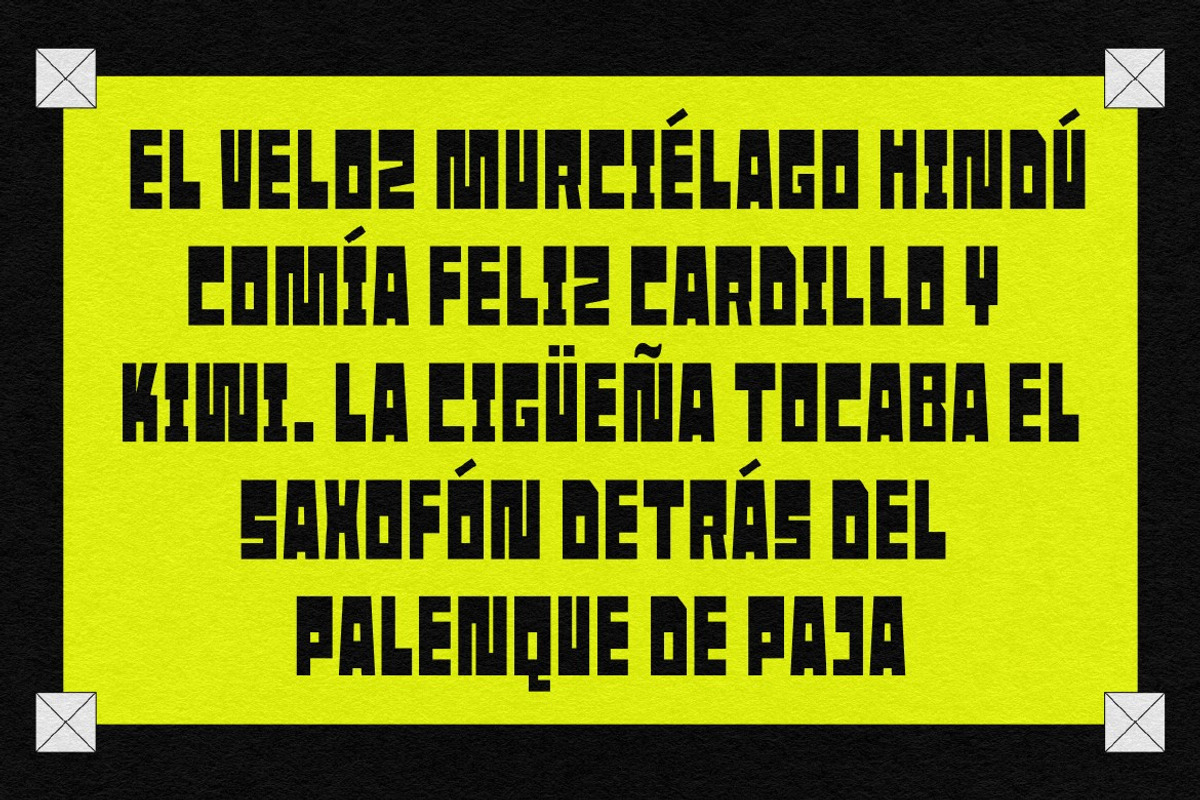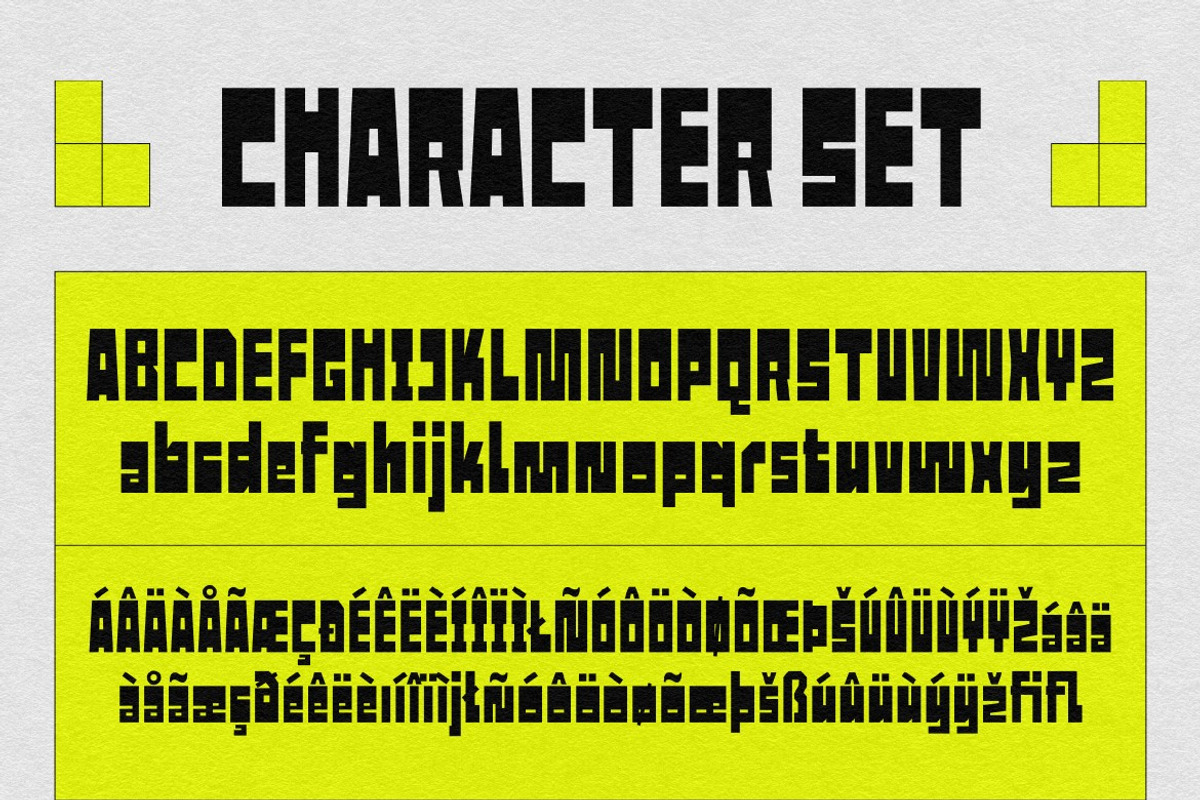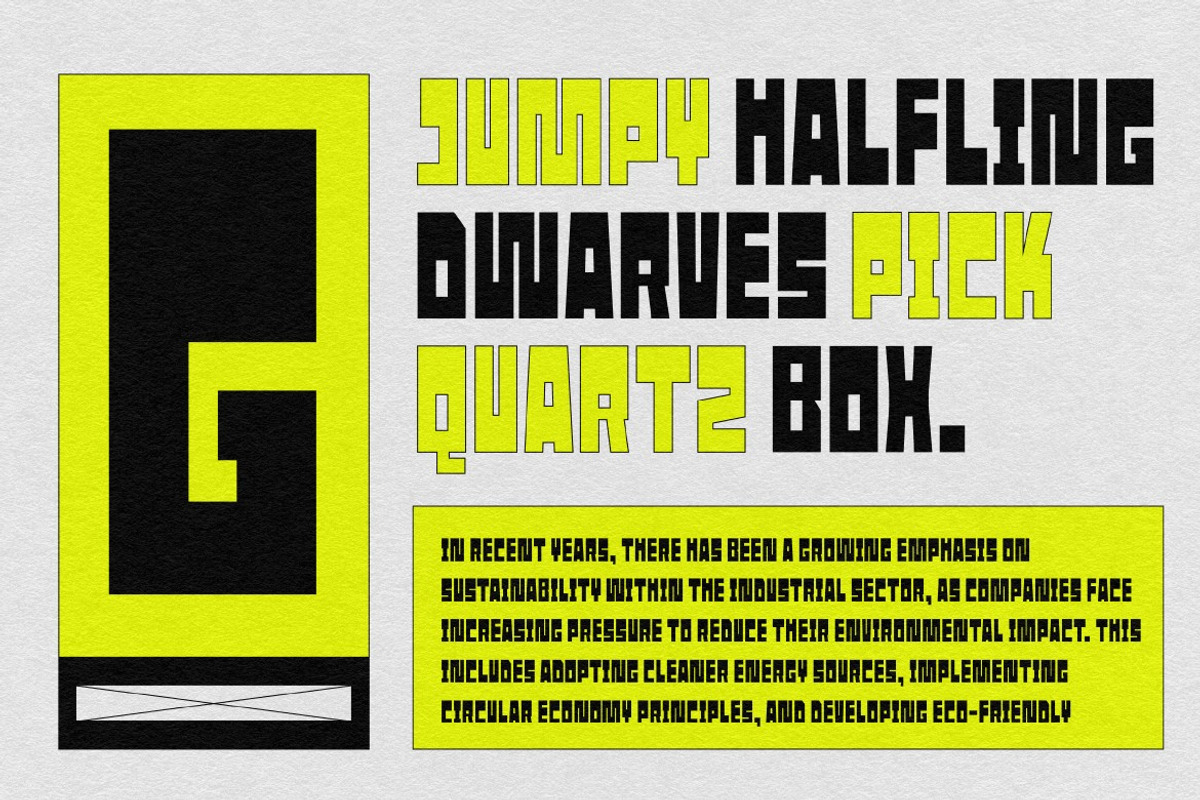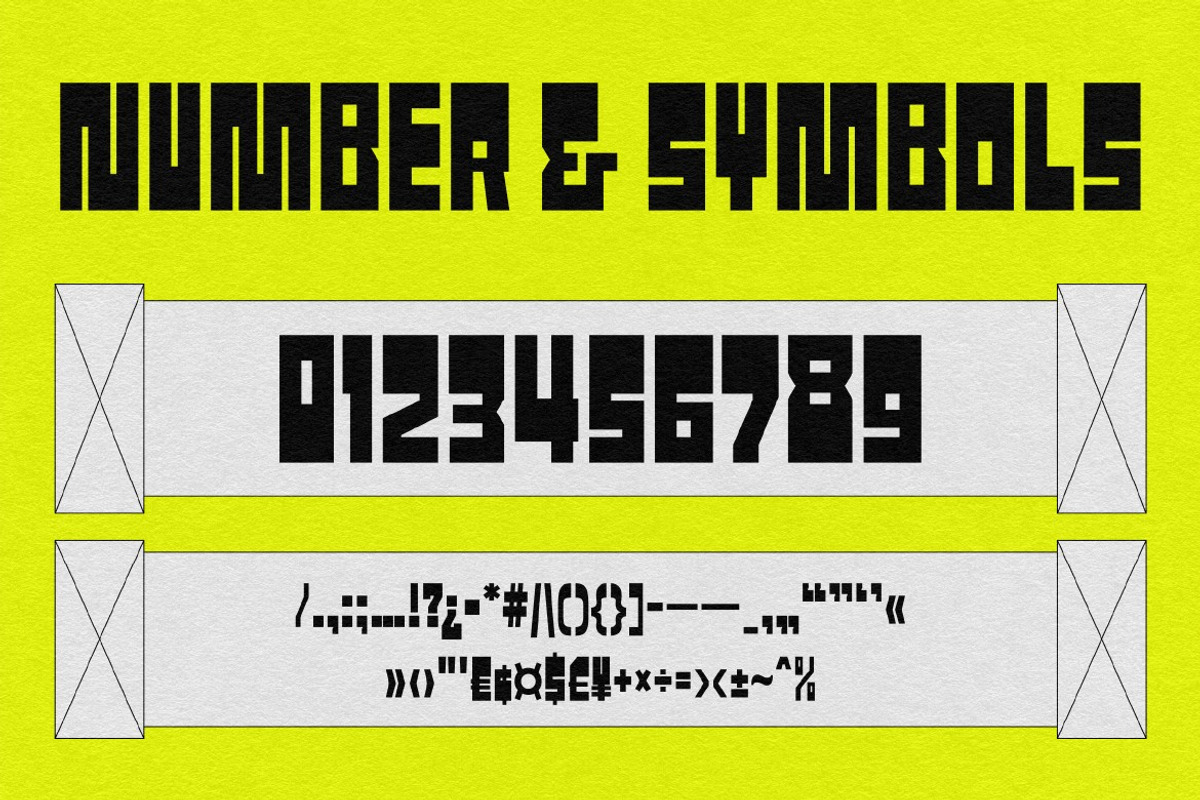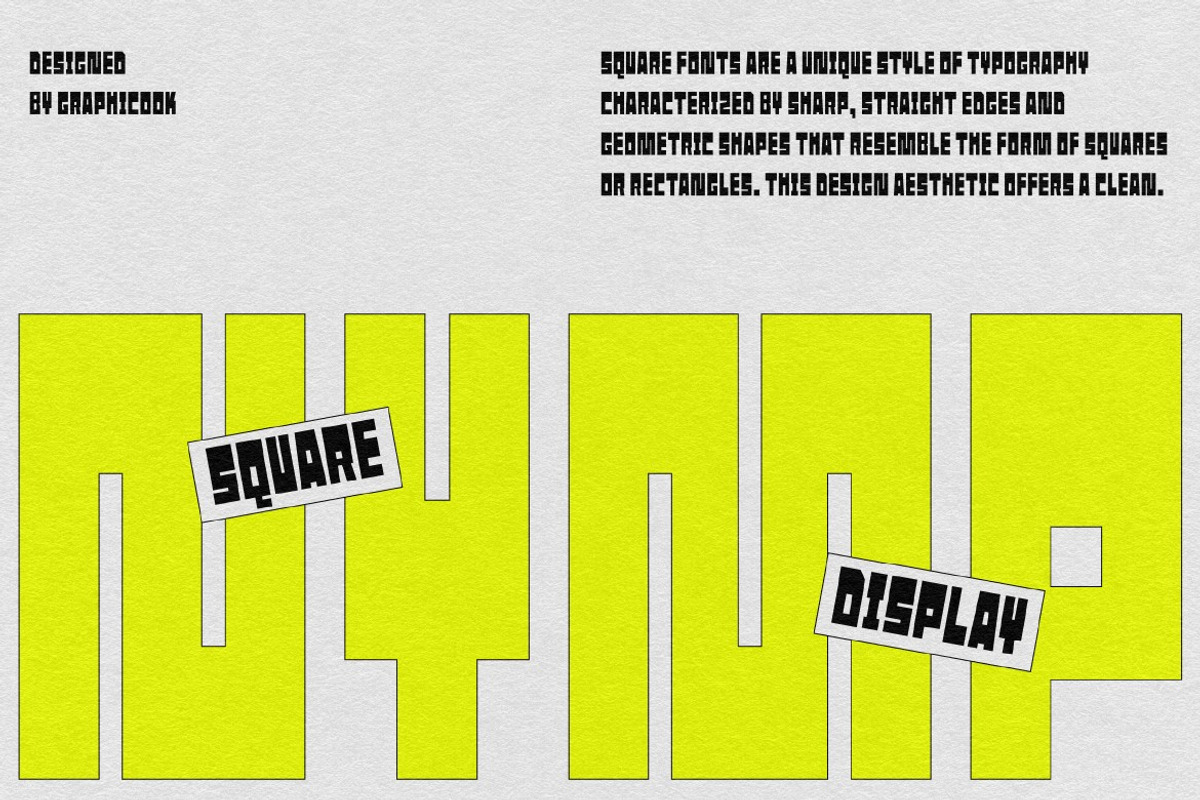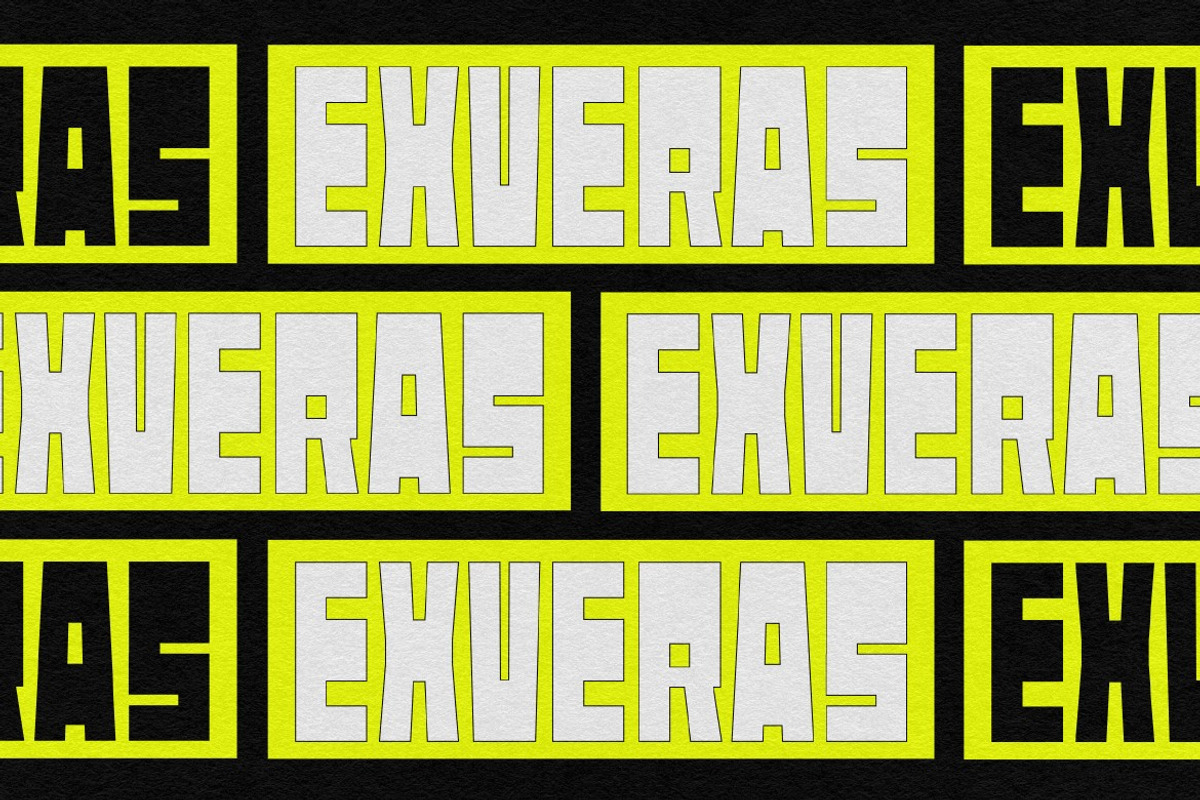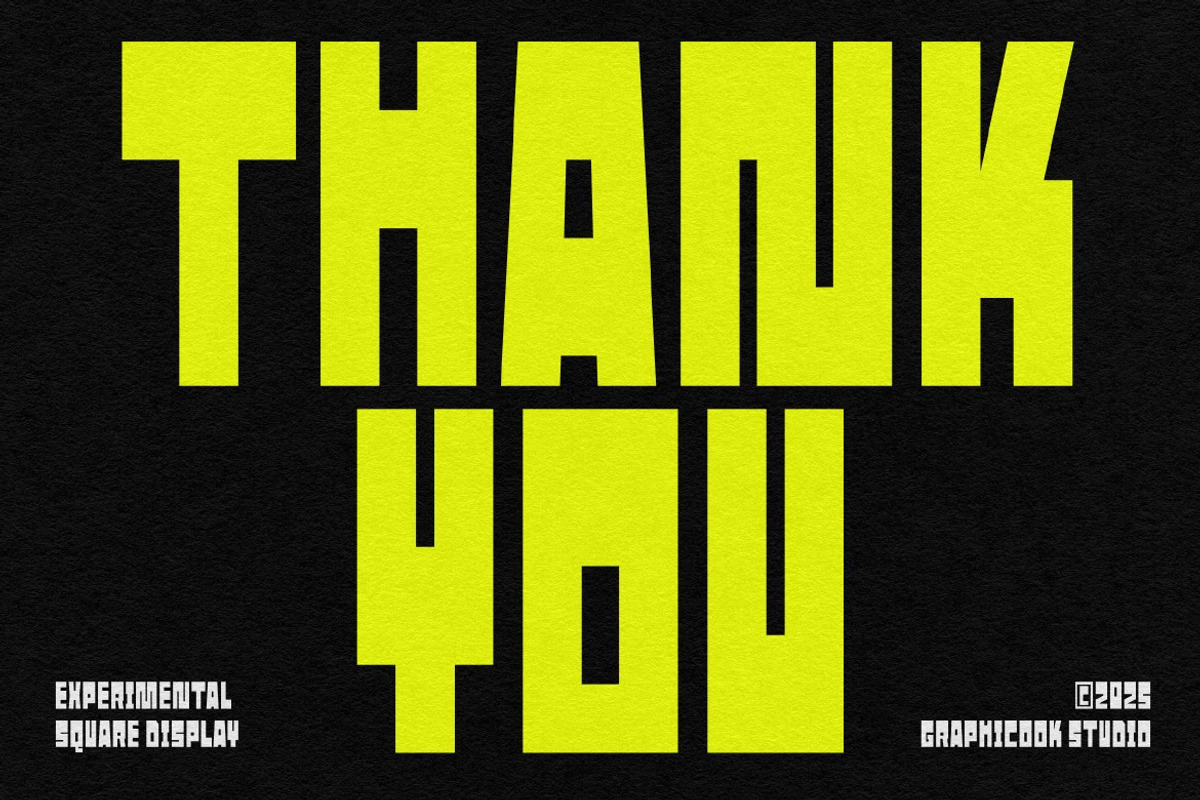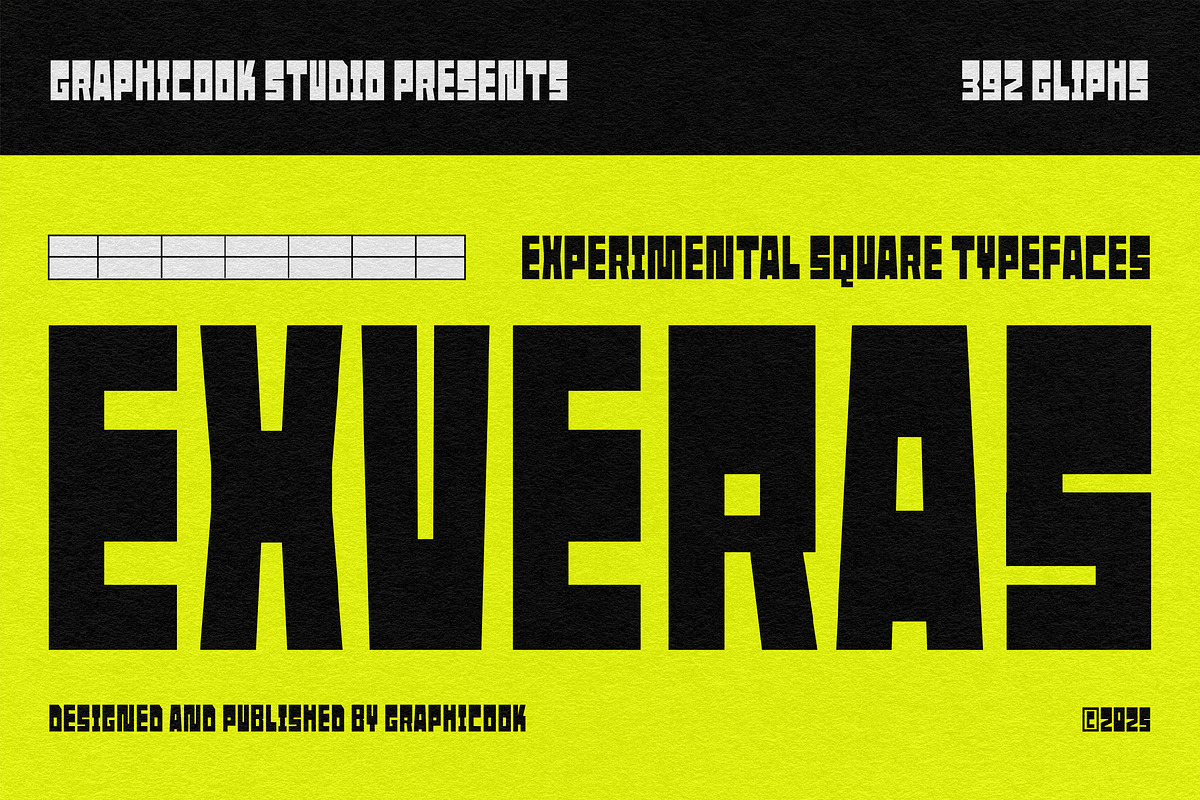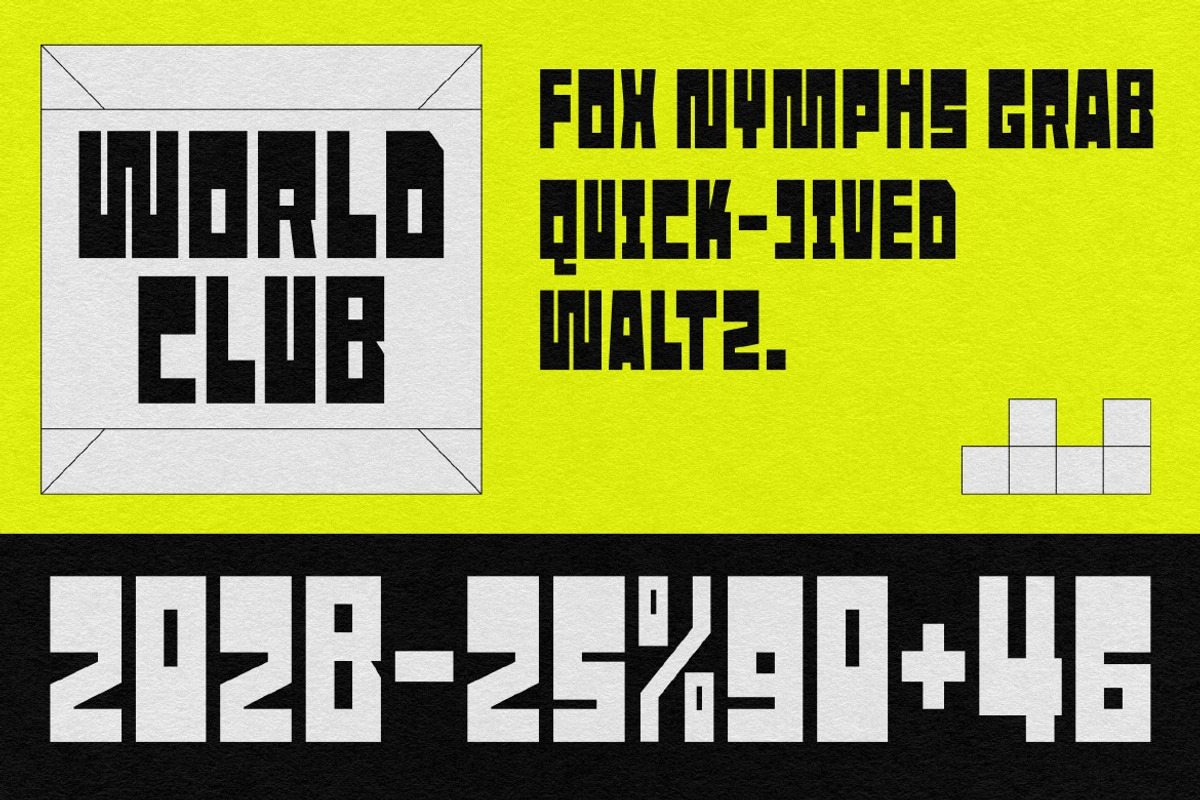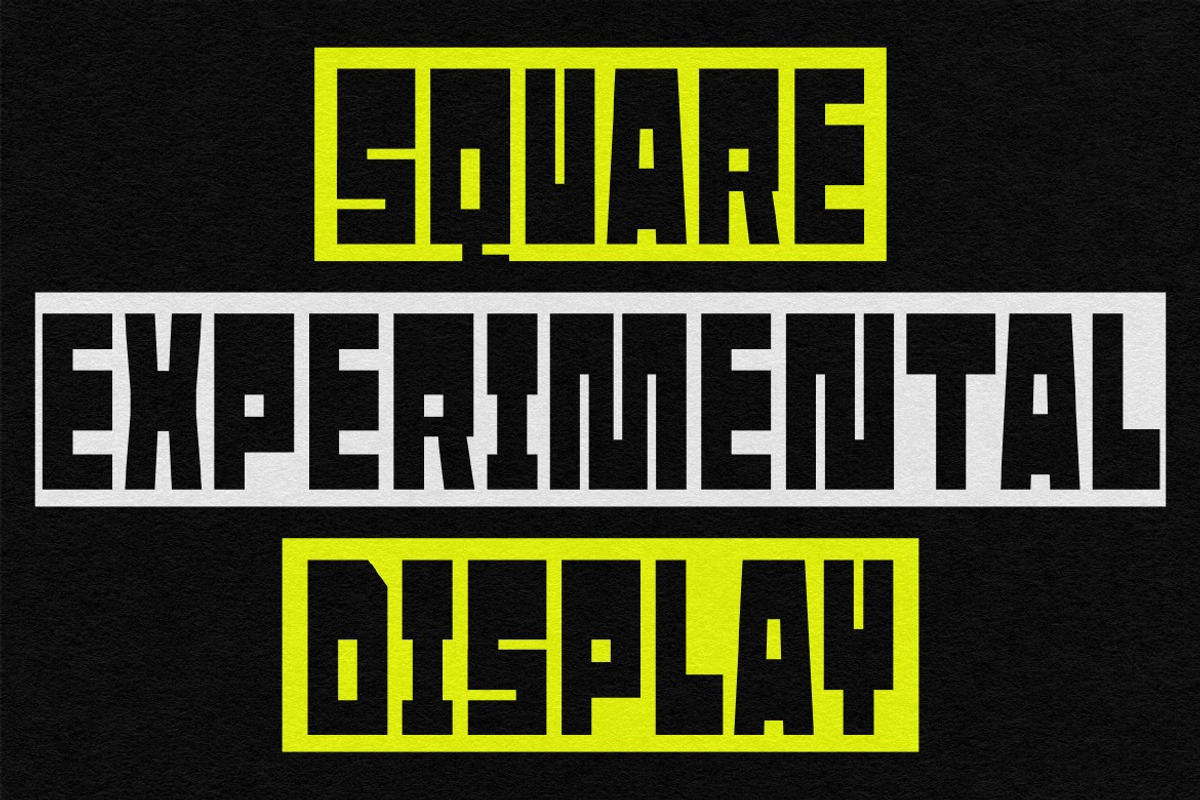
Exveras
Exveras is an experimental font featuring boxy, geometric shapes that create a futuristic look. Ideal for technology branding, games, posters, and logos, it perfectly complements modern, brutalist, or cyberpunk design styles.
Exveras is perfect for headlines, logotypes, magazines, packaging, quotes, movies, games, cover albums, book covers, and flyers, it's a perfect solution for creating eye-catching designs that stand out in any context.